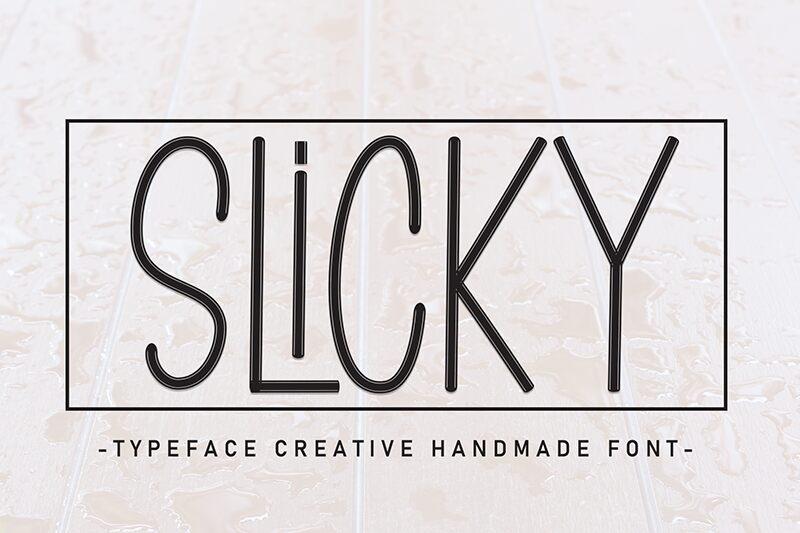
Slicky
Slicky font by Andi Moz is a light, condensed, handwritten typeface with a distinctly rounded appearance. Each letter has slightly elongated forms allowing their modern aesthetic to slide toward an elegant side. Minimalistic elements are visible throughout – in a project well executed in simplicity – ready for use without other planning or hassle-free applications for one-timers.
Available as a free handwritten font, Slicky can be perfect for branding, packaging design, advertising banners and posters, and labels. It can work on invitations like wedding cards or at exhibitions where its noticeable minimalist-modern fusion is unmistakable. Social media marketing, logotypes of all sizes and scales, book covers designed to achieve higher sales are also among its candidates.